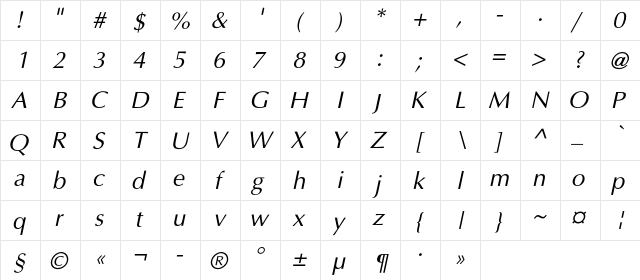
AGOpusC Italic
Design Context for AGOpusC Typeface
AGOpusC offers clean, dependable letterforms without strong stylistic allegiance, making it a practical choice for designers who need flexibility. The slanted form adds forward momentum and visual energy.